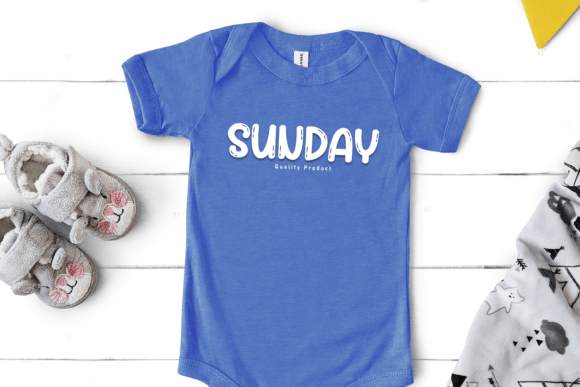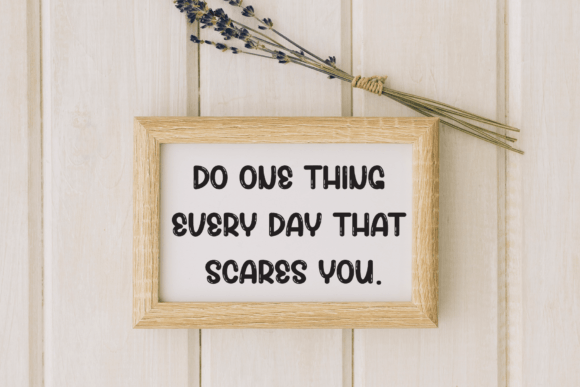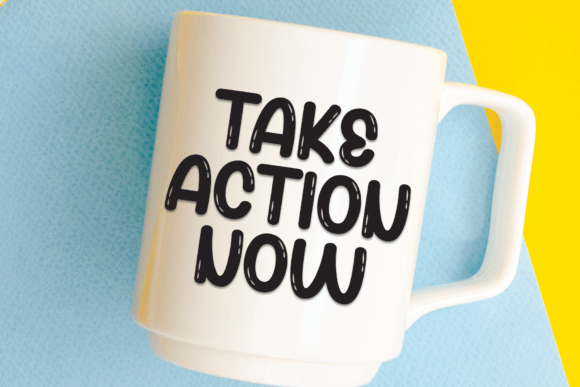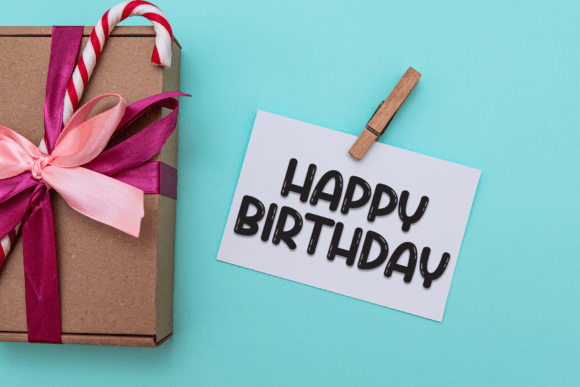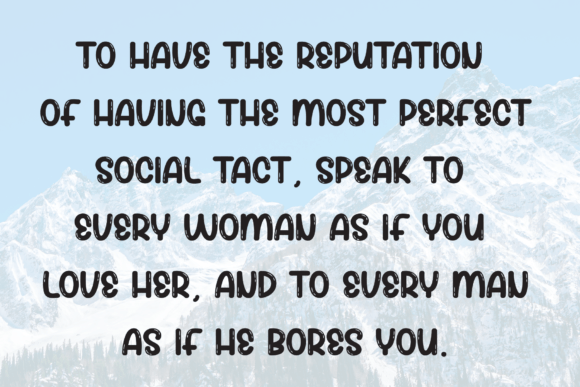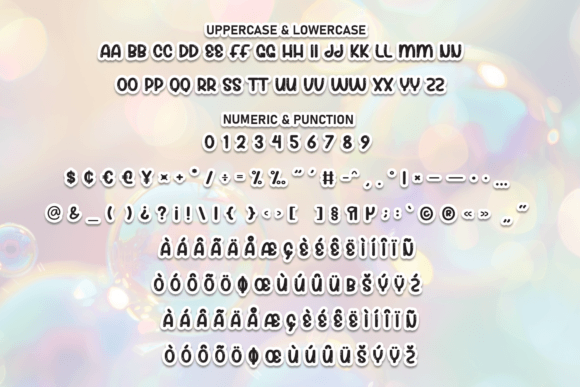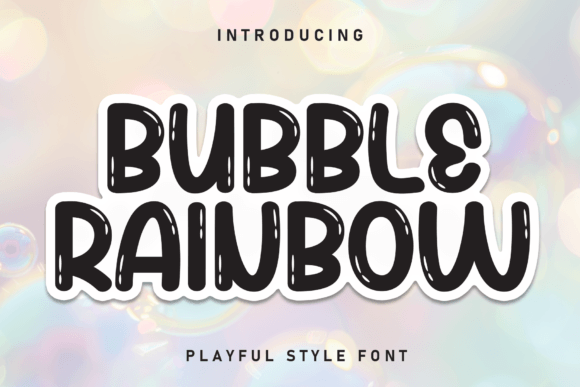
Bubble Rainbow Font: Adding a Touch of Whimsy to Your Designs
In the world of typography, fonts play a crucial role in conveying the tone and personality of a design. If you’re looking for a font that exudes a relaxed and friendly vibe, look no further than the Bubble Rainbow Font. This casual display font is perfect for adding a touch of whimsy to your personal projects, social media, and invitations.
The Charm of Bubble Rainbow Font
Bubble Rainbow Font is a unique and charming typeface that features natural, flowing strokes. Its effortless and charming style makes it an ideal choice for designers and crafters who want to add a personal touch to their work. The font’s easygoing style adds warmth and authenticity, making it perfect for designs that require a friendly and approachable tone.
Key Features of Bubble Rainbow Font
- Casual and Relaxed: Bubble Rainbow Font has a casual and relaxed vibe that makes it perfect for personal projects, social media, and invitations.
- Natural and Flowing Strokes: The font features natural and flowing strokes that give it a unique and charming appearance.
- Effortless and Charming: The font’s effortless and charming style makes it an ideal choice for designers and crafters who want to add a personal touch to their work.
- Warmth and Authenticity: The font’s easygoing style adds warmth and authenticity, making it perfect for designs that require a friendly and approachable tone.
Uses of Bubble Rainbow Font
Bubble Rainbow Font is a versatile typeface that can be used in a variety of design projects. Here are some of the ways you can use this font:
- Personal Projects: Use Bubble Rainbow Font to add a personal touch to your personal projects, such as scrapbooking, journaling, and crafting.
- Social Media: The font is perfect for social media graphics, such as Facebook posts, Instagram captions, and Twitter headers.
- Invitations: Use Bubble Rainbow Font to create beautiful and unique invitations for parties, weddings, and other special events.
- Signs and Displays: The font is also great for creating signs and displays for businesses, events, and exhibitions.
Tips for Using Bubble Rainbow Font
Here are some tips for using Bubble Rainbow Font in your designs:
- Pair it with Other Fonts: Bubble Rainbow Font pairs well with other fonts, such as sans-serif fonts and script fonts.
- Use it in Large Sizes: The font is best used in large sizes, such as headings and titles.
- Experiment with Colors: Bubble Rainbow Font looks great in a variety of colors, so don’t be afraid to experiment and find the perfect color for your design.
In conclusion, Bubble Rainbow Font is a unique and charming typeface that is perfect for adding a touch of whimsy to your designs. Its casual and relaxed vibe makes it ideal for personal projects, social media, and invitations. With its natural and flowing strokes, effortless and charming style, and warmth and authenticity, this font is sure to bring a smile to your audience’s face. So why not give it a try and see how it can elevate your designs?